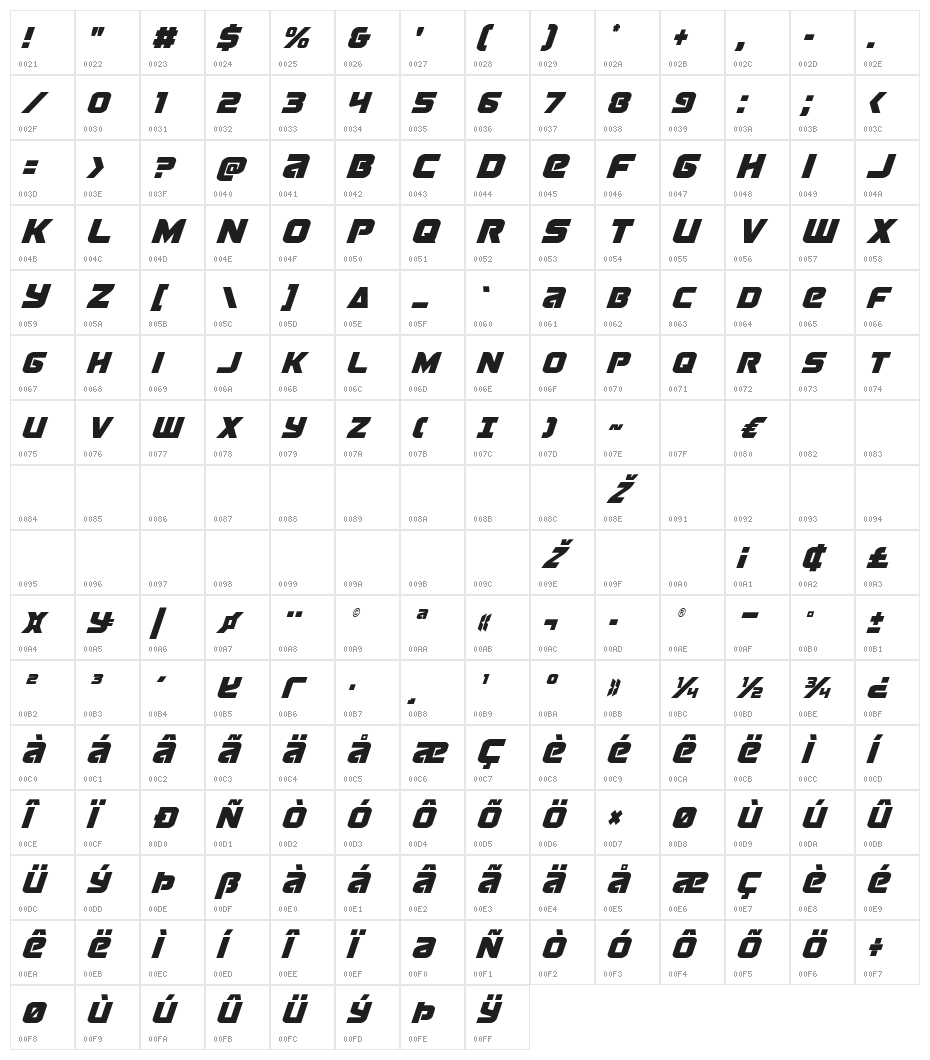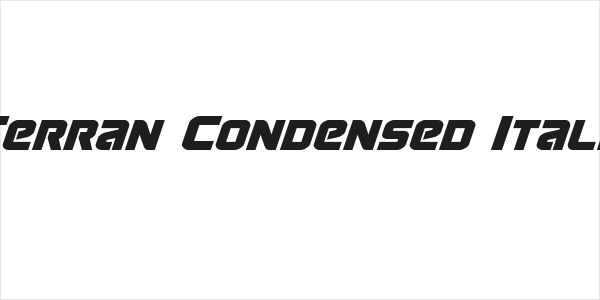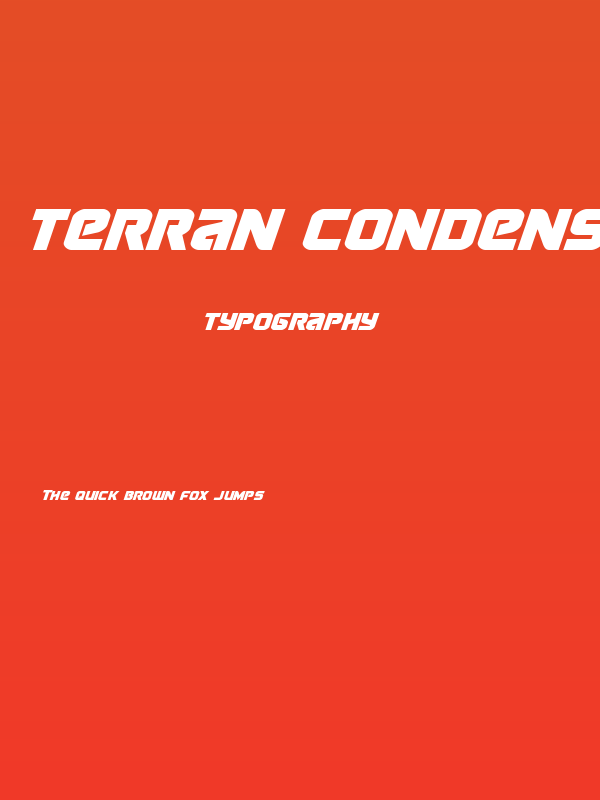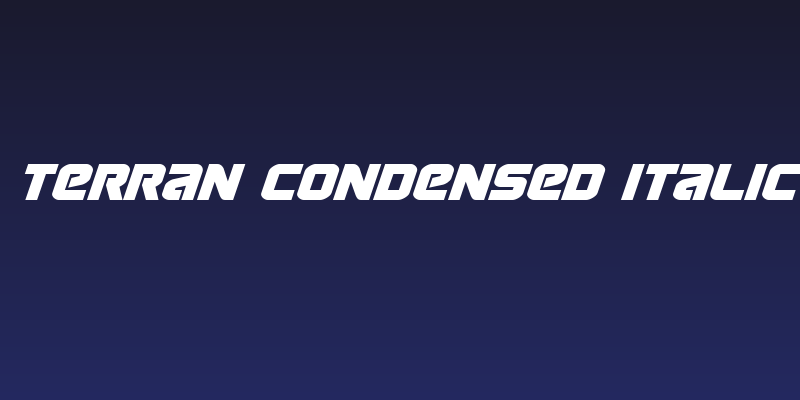
Terran Condensed Italic Font
Terran Condensed Italic Description
This font features a bold and dynamic style with a strong italic slant, giving it a sense of motion and energy. The characters are condensed, which allows for efficient use of space while maintaining readability. The strokes are thick and uniform, providing a robust appearance that is both modern and assertive. The angular design of the letters adds a futuristic touch, making it suitable for projects that require a contemporary and impactful look. The numerals and special characters are designed to match the bold and italicized style, ensuring consistency across all text elements.
| Proposed Projects | Ideal for sports branding, tech-related designs, video game titles, and dynamic advertising materials. |